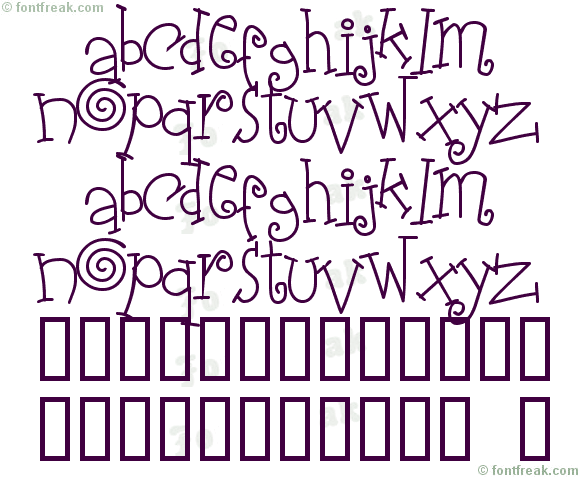
Elastic Wrath
About Elastic Wrath
Elastic Wrath, designed by Jenny Barck in 1997, is a captivating display font that exudes a playful yet edgy aesthetic. This font falls into the decorative category, characterized by its unique, whimsical letterforms that blend elasticity with a touch of wrath. The strokes are uneven, creating an organic feel that draws the eye, while the varying weights add depth and interest. The letters exhibit a moderate amount of contrast, with some characters showcasing exaggerated curves and playful embellishments, enhancing their visual appeal.
This font's distinctive style makes it particularly well-suited for a range of creative applications. It shines in contexts like wedding invitations, where its quirky nature can add a personal touch, and movie posters, where it can evoke a sense of intrigue and excitement. Restaurant menus can benefit from the font's unique flair, making the dining experience feel distinctive and memorable. Additionally, Elastic Wrath can be a great choice for artistic flyers or promotional materials, appealing to the creative spirit of potential customers.
What sets Elastic Wrath apart is its ability to convey personality and emotion through typography. Its playful curves and unexpected forms invite viewers to engage with the text, making it not just a means of communication but also an artistic expression. This font is a delightful choice for those wanting to infuse their work with a sense of creativity and dynamism.